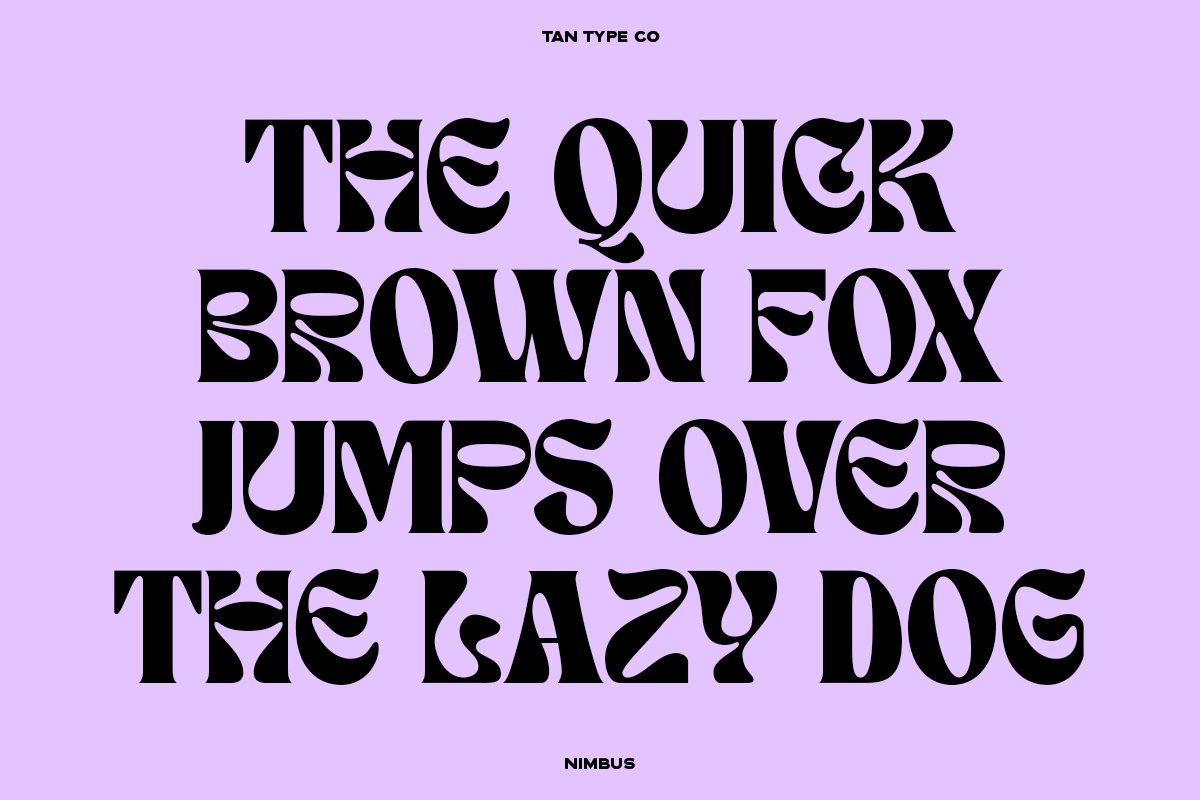
Famous Tan Nimbus Font 2023
Famous Tan Nimbus Font 2023. This font is inspired by vintage albums and posters from 1960s. Nimbus sans l is a version of nimbus sans using adobe font sources.
It’s Retro, Bold, And Playful.
It’s retro, bold, and playful. Web the tan nimbus font was published in july 2021 by the team of tantype. Tan nightingale font is an art.
This Font Is Inspired By Vintage Albums And Posters From 1960S.